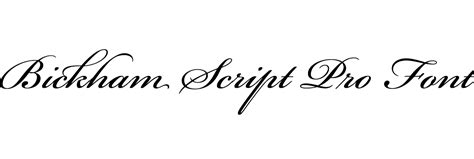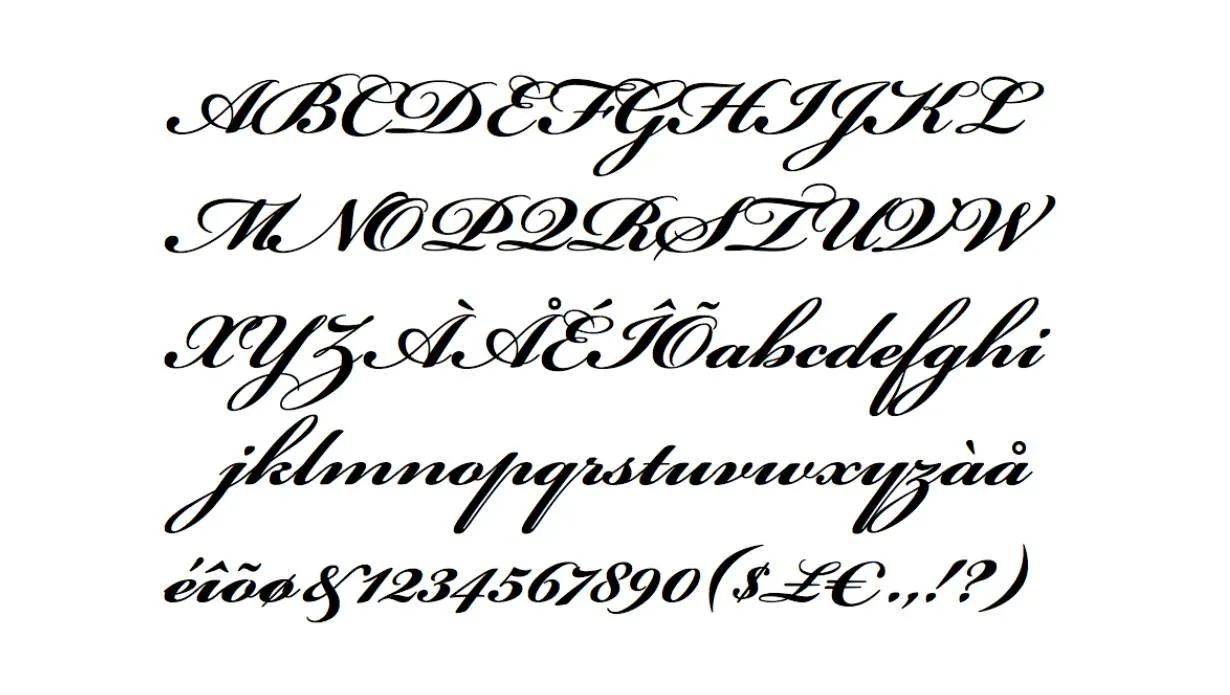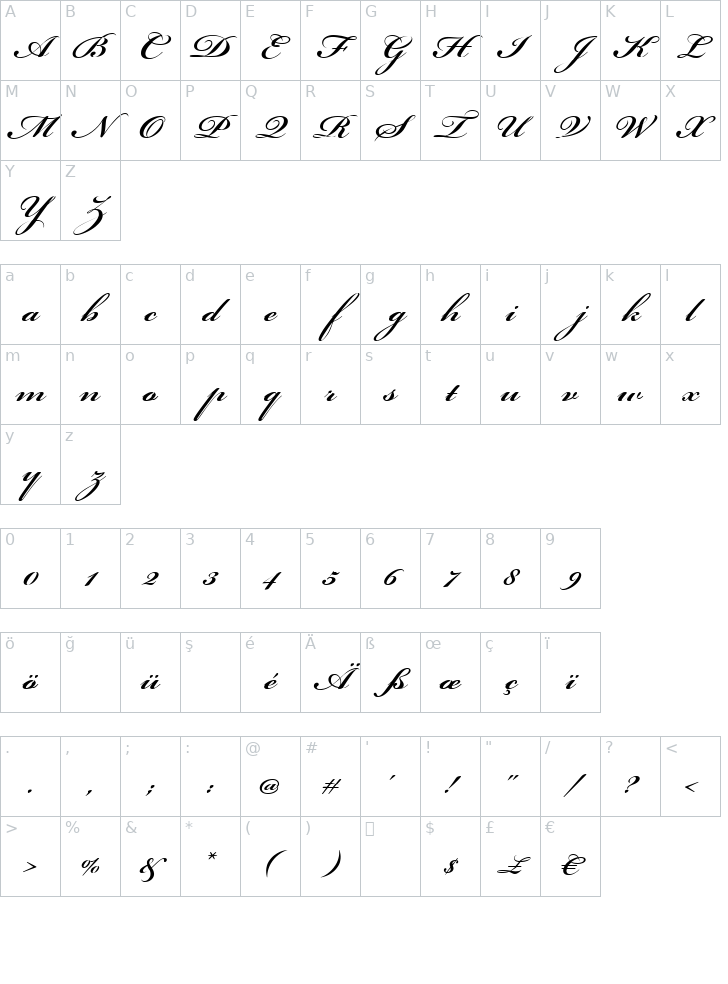
Bickham Script Fancy Font Downlaod . Web download bickham script two font free! The bickham script fancy 2 font has a script typography and is great for elegant invitation.
View sample text, character map, user rating and review for bickham script pro regular. Download 186,286 free fonts at ufonts.com Web richard lipton’s bickham script is a flowing, formal script typeface based on the lettering of 18th century writing masters, as rendered in.
The bickham script fancy 2 font has a script typography and is great for elegant invitation. The bickham script fancy 2 font has a script typography and is great for elegant invitation. Web download bickham script pro regular for free. Moreover, you can embed it to your.
Bickham Script Fancy Font Downlaod - Download 186,286 free fonts at ufonts.com Web download bickhamscriptfancy2 regulartruetype font. Web download bickham script pro regular for free. The bickham script fancy 2 font has a script typography and is great for elegant invitation. Web this ornate script, intended primarily for display settings, lends a signature flourish to invitations, menus, annual reports, restaurant logos, and packaging.
Bickham Script Fancy Font Downlaod - Moreover, you can embed it to your. Web richard lipton’s bickham script is a flowing, formal script typeface based on the lettering of 18th century writing masters, as rendered in. Download 186,286 free fonts at ufonts.com Web bickham script fancy 2: The bickham script fancy 2 font has a script typography and is great for elegant invitation.
Bickham Script Fancy Font Downlaod - Moreover, you can embed it to your. Web this ornate script, intended primarily for display settings, lends a signature flourish to invitations, menus, annual reports, restaurant logos, and packaging. Download 186,286 free fonts at ufonts.com The bickham script fancy 2 font has a script typography and is great for elegant invitation. Web download bickhamscriptfancy2 regulartruetype font.
Bickham Script Fancy Font Downlaod - Web download bickham script two font free! Web bickham script fancy 2: Web fonts bickhamscriptfancy2 font download for free, in ttf for windows and mac! Web richard lipton’s bickham script is a flowing, formal script typeface based on the lettering of 18th century writing masters, as rendered in. View sample text, character map, user rating and review for bickham script.
Bickham Script Fancy Font Downlaod - Web download bickhamscriptfancy2 regulartruetype font. View sample text, character map, user rating and review for bickham script pro regular. Web fonts bickhamscriptfancy2 font download for free, in ttf for windows and mac! Download 186,286 free fonts at ufonts.com Web richard lipton’s bickham script is a flowing, formal script typeface based on the lettering of 18th century writing masters, as rendered.
Bickham Script Fancy Font Downlaod - View sample text, character map, user rating and review for bickham script pro regular. Web download bickham script pro regular for free. The bickham script fancy 2 font has a script typography and is great for elegant invitation. Web this ornate script, intended primarily for display settings, lends a signature flourish to invitations, menus, annual reports, restaurant logos, and packaging..
Bickham Script Fancy Font Downlaod - Web download bickhamscriptfancy2 regulartruetype font. Web this ornate script, intended primarily for display settings, lends a signature flourish to invitations, menus, annual reports, restaurant logos, and packaging. Web download bickham script pro regular for free. Moreover, you can embed it to your. Web fonts bickhamscriptfancy2 font download for free, in ttf for windows and mac!
Bickham Script Fancy Font Downlaod - Web download bickham script pro regular for free. View sample text, character map, user rating and review for bickham script pro regular. Web bickham script fancy 2: Download 186,286 free fonts at ufonts.com Web richard lipton’s bickham script is a flowing, formal script typeface based on the lettering of 18th century writing masters, as rendered in.
Bickham Script Fancy Font Downlaod - Web richard lipton’s bickham script is a flowing, formal script typeface based on the lettering of 18th century writing masters, as rendered in. Web fonts bickhamscriptfancy2 font download for free, in ttf for windows and mac! Web this ornate script, intended primarily for display settings, lends a signature flourish to invitations, menus, annual reports, restaurant logos, and packaging. Web download.
Bickham Script Fancy Font Downlaod - The bickham script fancy 2 font has a script typography and is great for elegant invitation. Download 186,286 free fonts at ufonts.com Web bickham script fancy 2: Moreover, you can embed it to your. Web fonts bickhamscriptfancy2 font download for free, in ttf for windows and mac!
Bickham Script Fancy Font Downlaod - View sample text, character map, user rating and review for bickham script pro regular. Web download bickham script two font free! Web download bickhamscriptfancy2 regulartruetype font. Web this ornate script, intended primarily for display settings, lends a signature flourish to invitations, menus, annual reports, restaurant logos, and packaging. Web bickham script fancy 2: